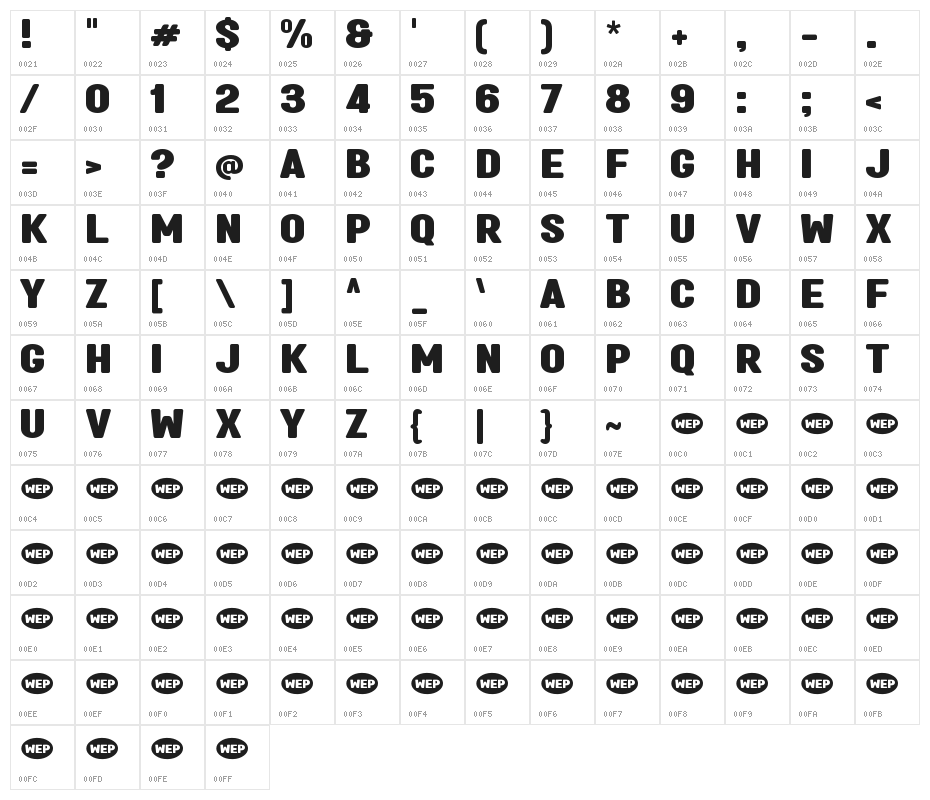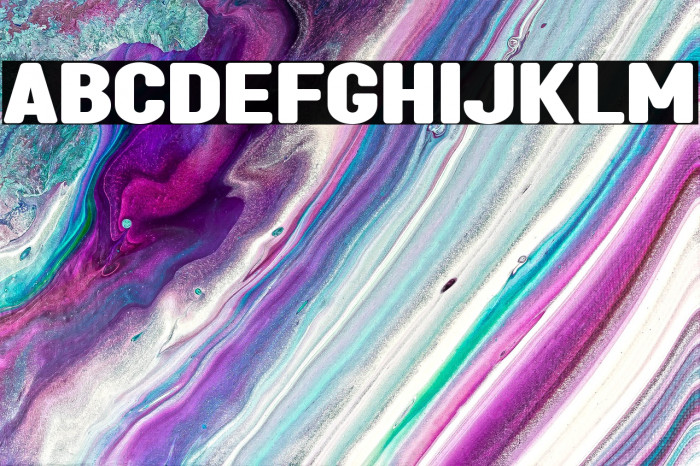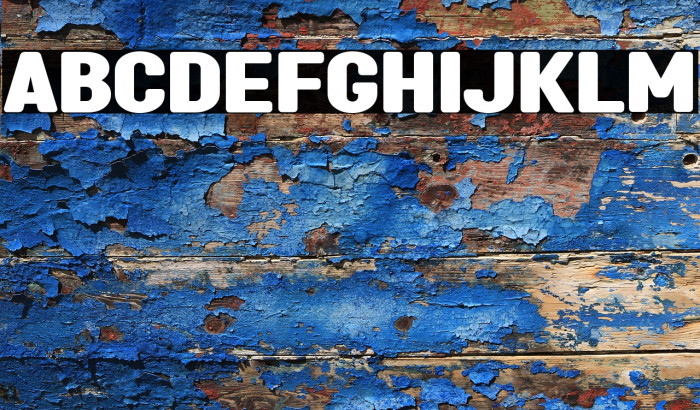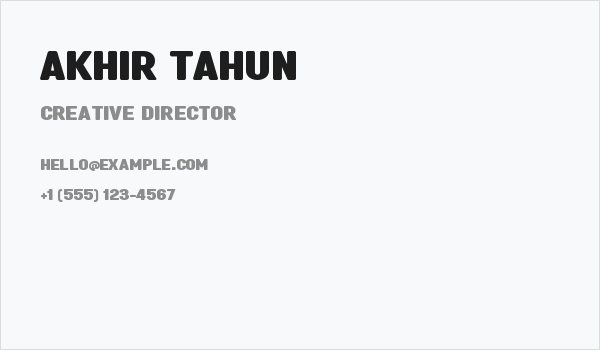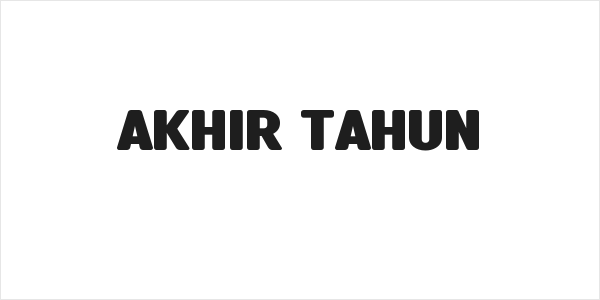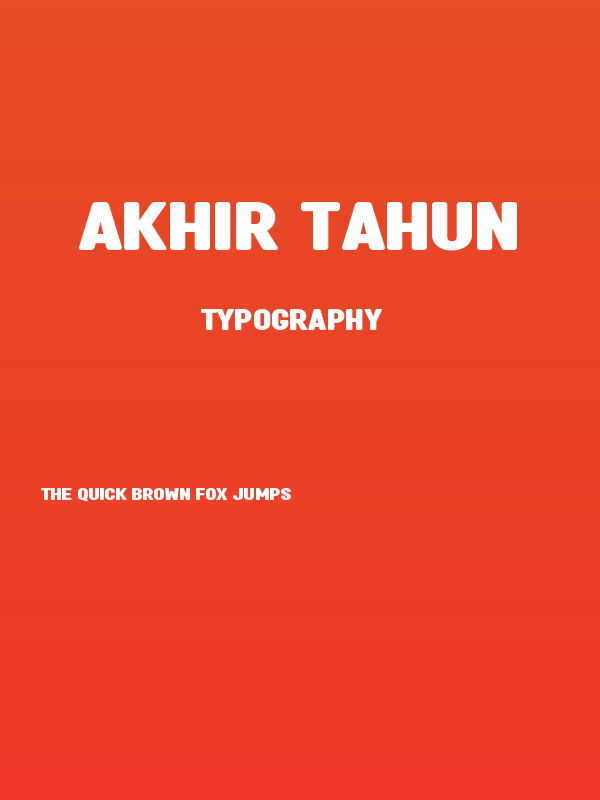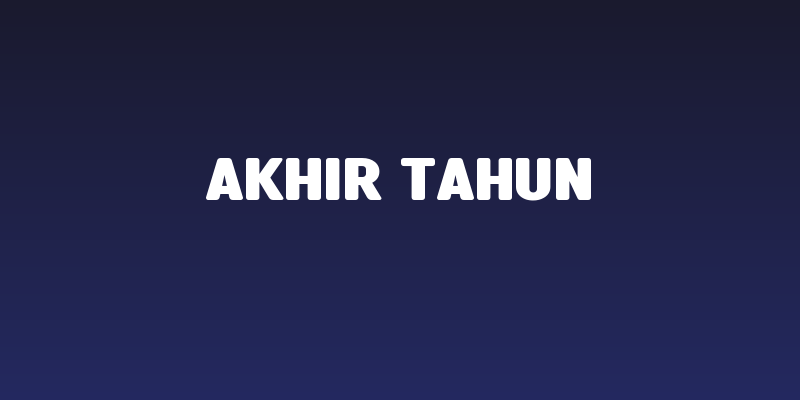
Akhir Tahun Font
Akhir Tahun Description
This font features bold, rounded characters with a strong presence, making it ideal for impactful designs. The uppercase letters are uniform in height, with a consistent stroke width that adds to its bold appearance. The numerals and special characters maintain the same weight and style, ensuring a cohesive look across all elements. The rounded edges soften the overall feel, making it approachable while still retaining a sense of authority. This font is well-suited for attention-grabbing headlines and branding materials.